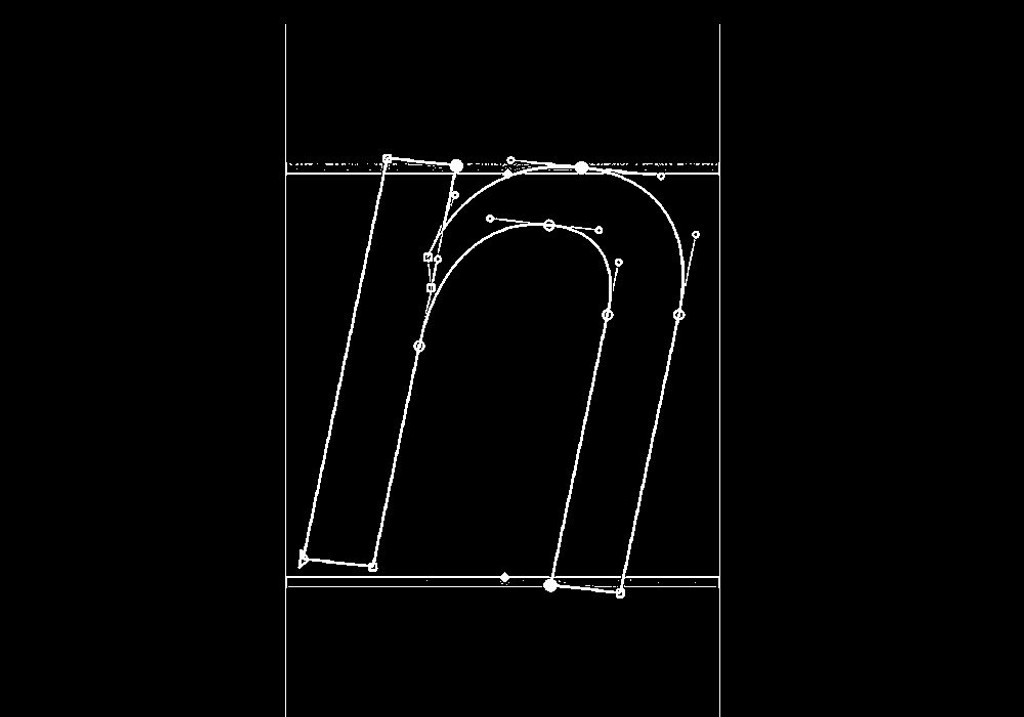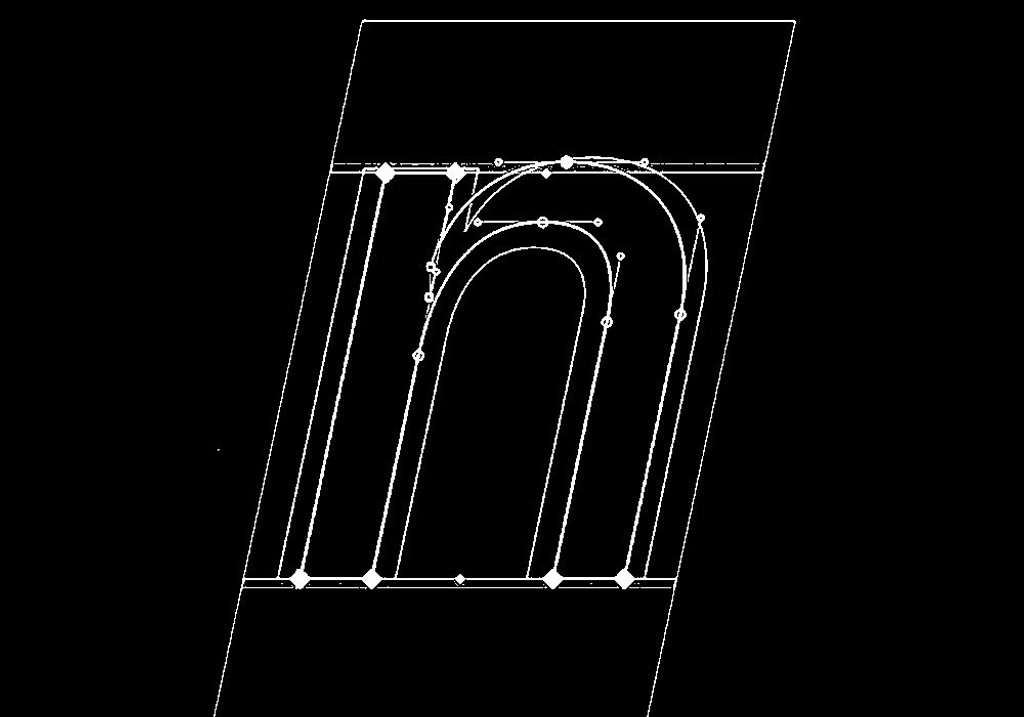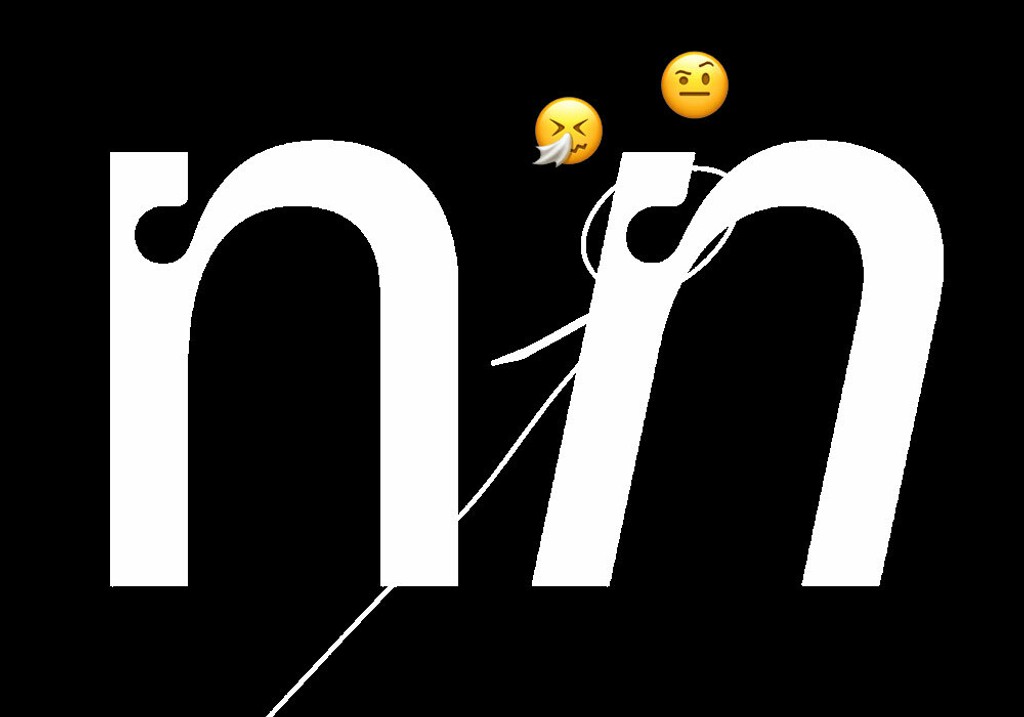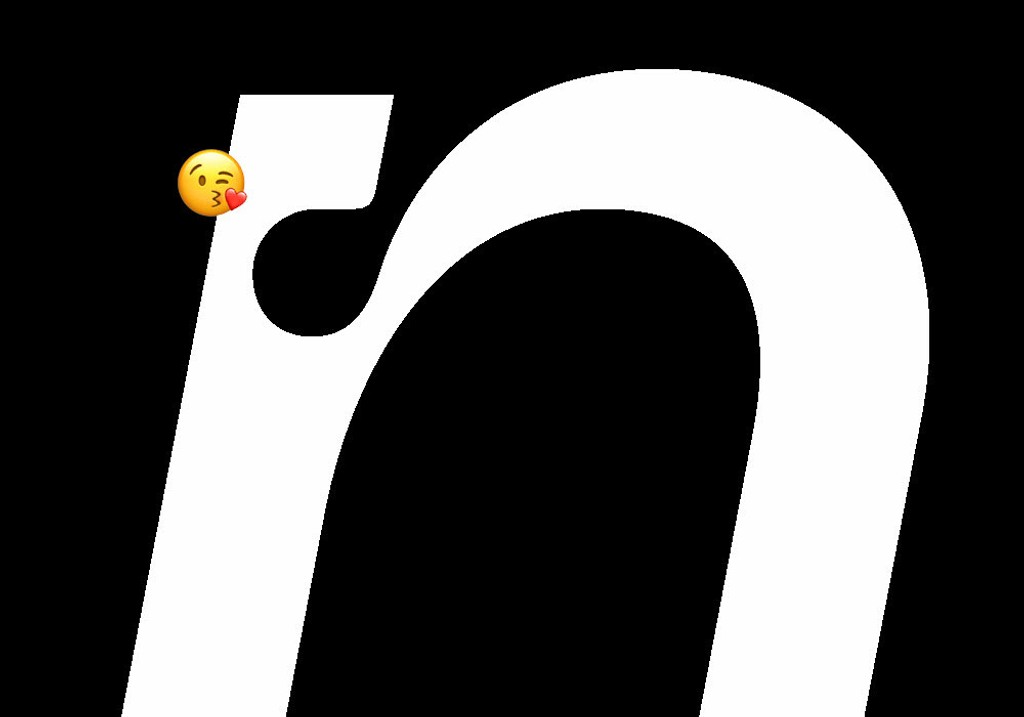
Meet the Team: A Mini-Italics Tutorial From Fabiola Mejía
Fabiola is an independent type designer from Costa Rica. In 2017, she completed the Type@Cooper Condensed Program in NYC, and in 2019, she received an MA in Typeface Design from TypeMedia in The Netherlands. Apart from working remotely with Dinamo from San José, she recently founded SUPERCONTINENTE—a research space and archival platform dedicated to her type design practice and collaborative graphic explorations.
Mini Italics Tutorial
It was Fabiola who worked on the italics of ABC Camera. And so below, Fabiola takes us through the task of angling of the typeface, with and without its holes:
“In general, the drawing process involved rotating upright glyphs by half of the italic angle defined and then slanting by another half.”
“From there, my time was spent making verticals and horizontals straight again and adjusting the (distorted) shapes while making sure things interpolated smoothly.”
Note: The holes stay upright while the character slants ☝️
“Once the plain style was done, I moved on to the bulleted style, which was the main challenge.”
“We decided to keep the bullets as circular and round as possible, which involved careful adjustments so as to not exaggerate tension.”